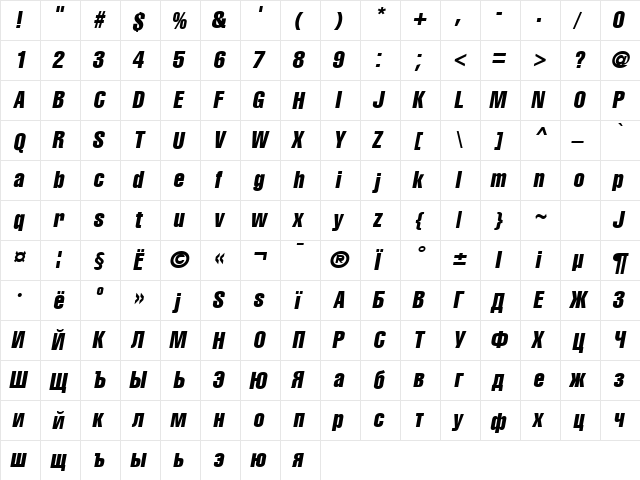
A1012HelvetikaCmprs TYGRA Compress-Italic
| Style | Compress-Italic |
Design Context for A1012HelvetikaCmprs TYGRA Typeface
A1012HelvetikaCmprs TYGRA is a composed and adaptable typeface that performs quietly and consistently across a wide range of design contexts. Its italic angle brings a sense of urgency and motion to the letterforms.